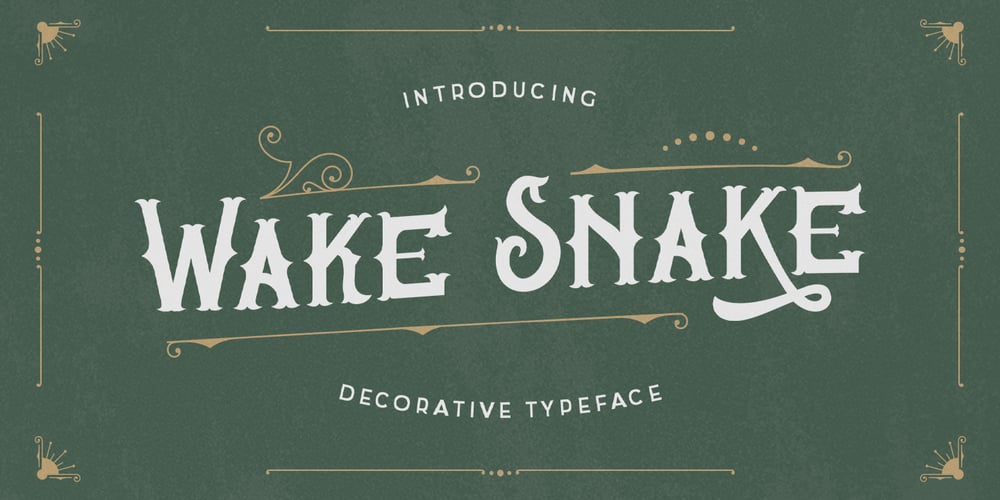
Wake Snake
Wake Snake font
Wake Snake Font Family was designed by Hilmius Akbar and published by Typefactory. Wake Snake contains 1 styles and family package options. Wake Snake is a beautiful font that is capable of handling a ton of project types and designs.This vintage, Victorian inspired font is ideal for a giving your projects a classy and nostalgic feel.